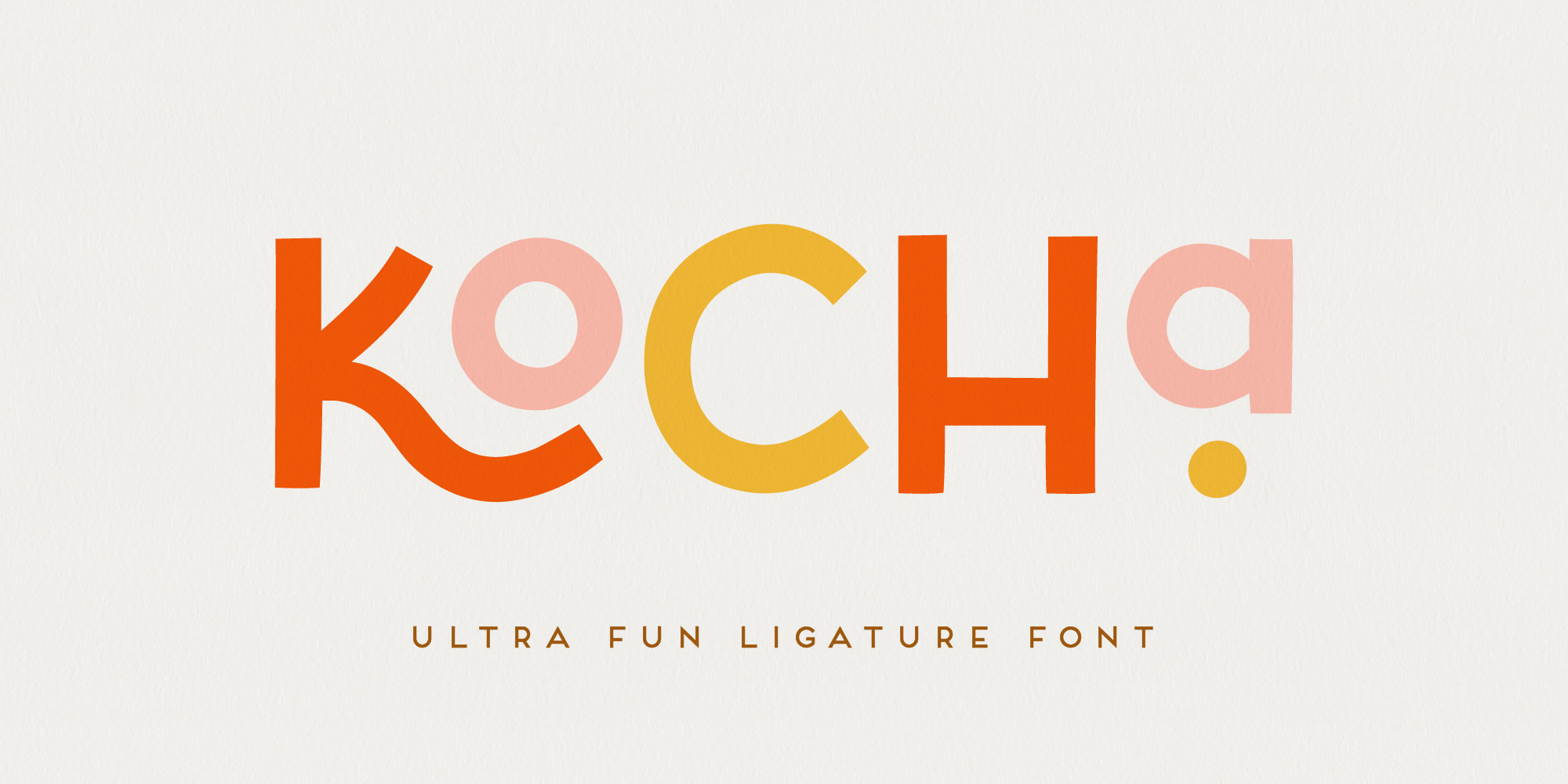
Kocha Font is ideal for premium tea companies, Japanese cultural centers, traditional tea ceremony venues, authentic Asian restaurants, mindful wellness brands, zen meditation studios, organic health products, and serene lifestyle communications.
What makes Kocha Font truly exciting is its tranquil ability to embody the meditative essence and cultural refinement of traditional tea ceremony through gracefully balanced letterforms that capture the harmony, mindfulness, and spiritual depth of authentic tea culture. This serene typeface features gentle characteristics with subtle Asian-inspired influences that instantly convey cultural respect, mindful tranquility, and sophisticated simplicity, making it the perfect choice for brands celebrating tea traditions, promoting mindful living, and communicating with audiences who appreciate the profound connection between tea culture, meditation, and peaceful lifestyle practices.
The Kocha Font family includes regular, light, medium, bold, and calligraphic variations, complemented by tea-inspired ornaments and cultural alternates that enhance the meditative atmosphere, providing designers with comprehensive tools for creating peaceful brand experiences and mindful communications that resonate with tea enthusiasts and wellness-focused audiences seeking authentic tranquility and cultural appreciation.
Tea companies and wellness organizations will find Kocha Font Free Download essential for creating authentic atmospheres that honor tea traditions while appealing to contemporary audiences seeking mindful experiences and cultural enrichment. This versatile typeface excels in both traditional tea ceremony applications and modern wellness contexts, maintaining its cultural integrity while ensuring accessibility across all mindful environments.
The font's harmoniously crafted construction demonstrates deep respect for tea culture traditions while ensuring modern functionality standards. From tea packaging to meditation center signage, this culturally-aware typeface maintains its serene dignity while providing the versatility needed for diverse wellness applications. International tea brands appreciate how this font effortlessly communicates cultural respect, mindful living, and distinguished American appreciation for tea culture design excellence through superior meditation-inspired typography.